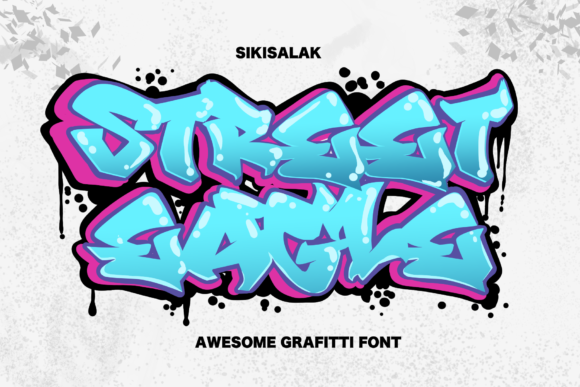
Introducing Street Eagle Graffiti Font: Elevate Your Designs with a Unique Display Font
In the world of graphic design, typography plays a crucial role in conveying messages, expressing creativity, and capturing attention. For designers, artists, and crafters looking to add a personalized touch to their projects, the Street Eagle Graffiti Font is an exciting discovery. This distinctive display font, with its graffiti-like appearance, is perfect for a wide range of applications, from crafting projects and apparel design to logotypes, advertising, and wall decoration.
What is Street Eagle Graffiti Font?
Street Eagle is a unique display font that embodies the vibrant and dynamic spirit of graffiti art. Its bold, expressive characters are designed to make a statement, adding an edgy, urban feel to any design project. Whether you’re working on a DIY craft, creating custom apparel, or developing a brand’s visual identity, Street Eagle Graffiti Font offers a versatile and stylish solution.
Endless Possibilities: Uses of Street Eagle Graffiti Font
The Street Eagle Graffiti Font is incredibly versatile, making it suitable for various design projects and applications. Here are some ideas to get you started:
- Crafting Projects: Add a personalized touch to your handmade crafts, such as journals, cards, and decorative items.
- Apparel Design: Create eye-catching custom t-shirts, hoodies, and hats that showcase your unique style.
- Logotype and Branding: Develop a bold, memorable logo that sets your brand apart from the competition.
- Advertising: Use Street Eagle Graffiti Font to create attention-grabbing ads, flyers, and posters that demand attention.
- Wall Decoration: Design stunning wall art, murals, and decals that add a touch of personality to any room.
Take Your Designs to the Next Level
With Street Eagle Graffiti Font, you can elevate your designs in several ways:
- Unique Style: Stand out from the crowd with a font that offers a fresh, distinctive look.
- Customization: Personalize your designs with a font that can be easily customized to fit your project’s needs.
- Versatility: Use Street Eagle Graffiti Font across various design projects, from digital to print.
Tips and Tricks for Using Street Eagle Graffiti Font
To get the most out of Street Eagle Graffiti Font, consider the following tips:
- Experiment with Colors: Take advantage of the font’s bold, graffiti-like appearance by experimenting with vibrant colors and gradients.
- Mix and Match: Combine Street Eagle Graffiti Font with other fonts to create visually appealing contrasts and hierarchies.
- Play with Texture: Add depth and interest to your designs by incorporating textures and patterns that complement the font’s urban feel.
Street Eagle Graffiti Font is a game-changer for designers, artists, and crafters looking to add a unique, personalized touch to their projects. With its bold, graffiti-like appearance and versatility, this font offers endless possibilities for creative expression. Whether you’re working on a DIY craft, developing a brand’s visual identity, or simply looking to elevate your designs, Street Eagle Graffiti Font is an excellent choice.